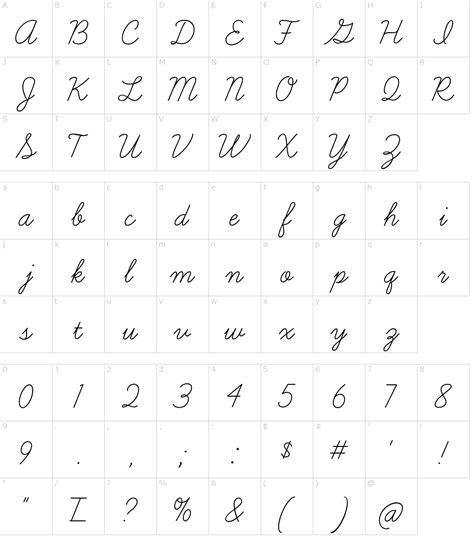
Learning Curve Pro Font Family by Blue Vinyl Font Bros
Font Learning Curve. Web explore learning curve designed by jess latham at adobe fonts. A script typeface with 3 styles, available from adobe fonts.
Learning Curve Pro Font Family by Blue Vinyl Font Bros